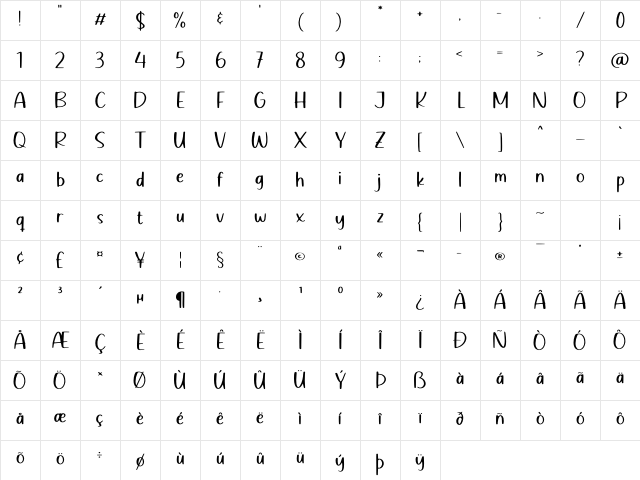
Complete Jadibeken Regular glyph index. Displaying only characters natively supported by Jadibeken Regular font.
Jadibeken is a composed and adaptable typeface that performs quietly and consistently across a wide range of design contexts.